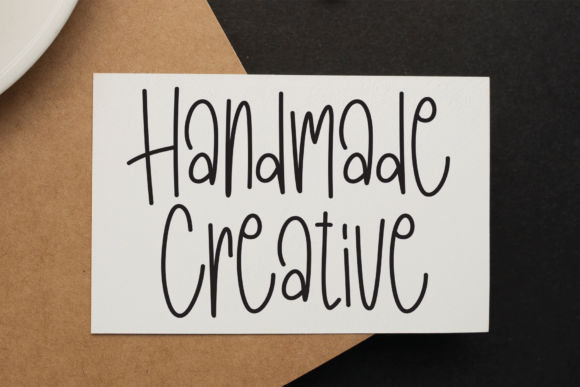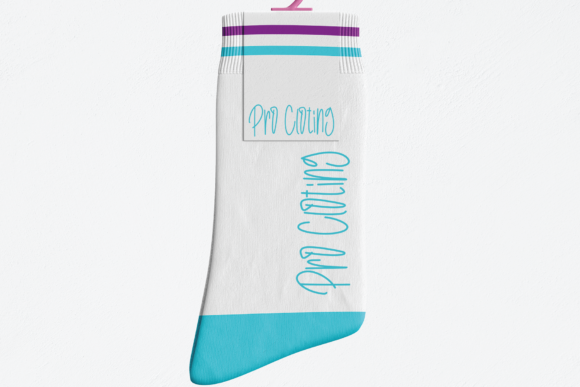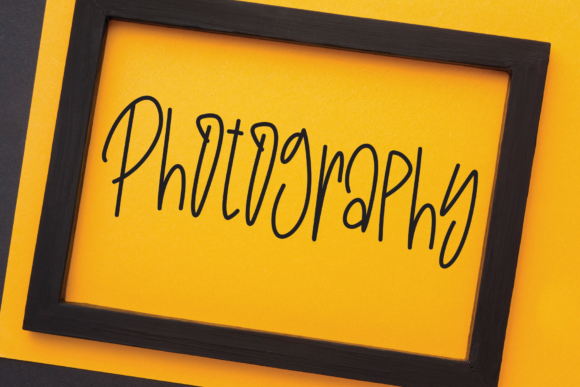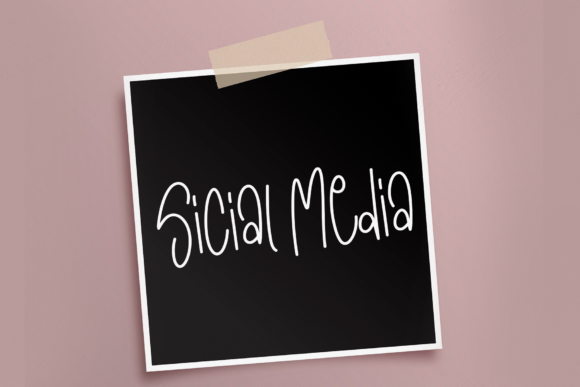
Handwriting Font
About Handwriting Font
Handwriting is a relaxed and casual handwritten font. It is the best choice for creating eye catching logos, branding and quotes. Every letter has a unique and beautiful touch, which will make your design come alive!